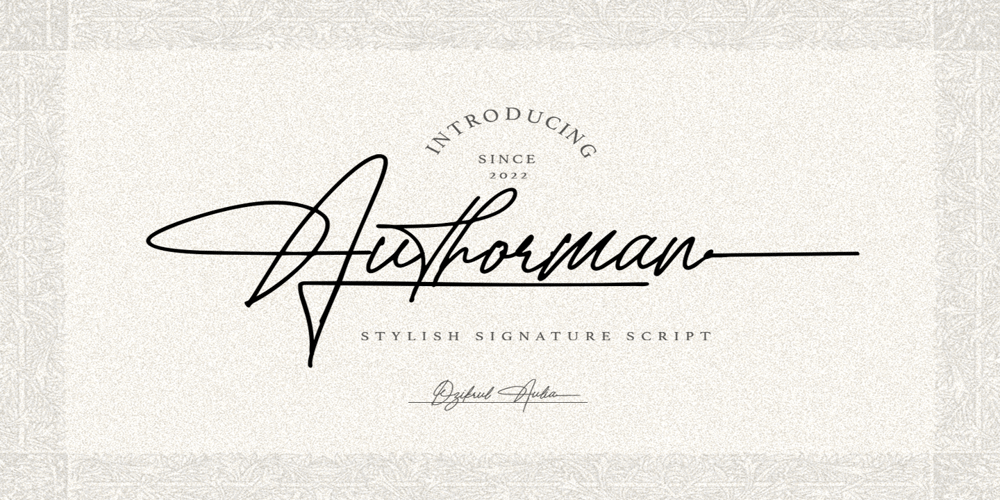
Authorman Font Family was designed by Sarid Ezra, Dzikrul Aulia and published by Bale Type. Authorman contains 1 styles and family package options. Authorman is a stylish signature script that you can use for any project such as for your own customized logo design, branding, or even your personal signature. The interesting part is, this font also contains an swash and long terminal alternates that you can access at opentype features in Adobe. This font is also support multi language.